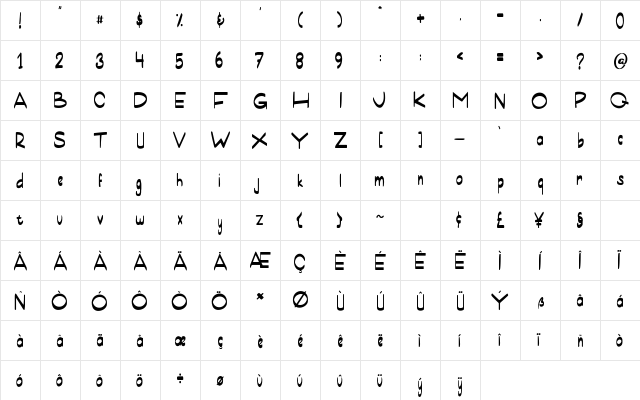
Cold House Regular
| Designer | Dian Mariesta |
Design Context for Cold House Typeface
Cold House takes a measured approach to typography — its balanced proportions and neutral character make it a reliable workhorse for both digital and print work.